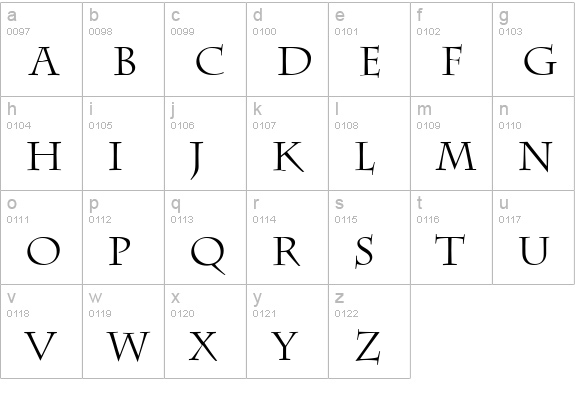
Diamonds & Pearls Font Details
Diamonds & Pearls font is a stunning and elegant typeface that exudes sophistication and luxury. With its intricate details and refined curves, this font is perfect for adding a touch of glamour to your designs. The combination of diamonds and pearls in the design creates a unique and opulent look that is sure to make your projects stand out. This font is not only visually captivating but also versatile, making it suitable for a wide range of design projects, from wedding invitations to branding materials. Whether you are looking to add a touch of elegance to your designs or create a luxurious atmosphere, Diamonds & Pearls font is the perfect choice. Best of all, Diamonds & Pearls font is available for free download at FontsMarket.com. This means that you can easily access this gorgeous typeface and use it in your projects without any cost. Don't miss out on the opportunity to elevate your designs with this exquisite font – download Diamonds & Pearls today and let your creativity shine!